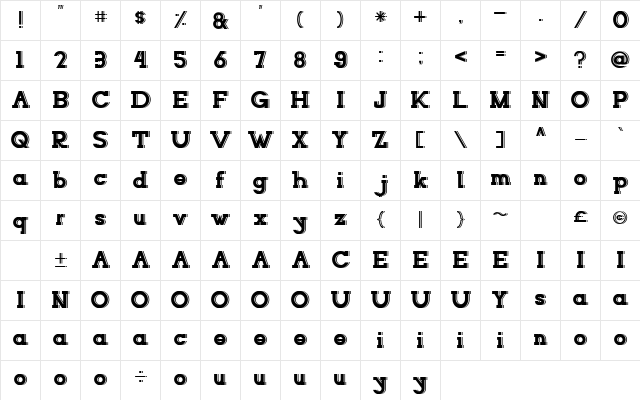
NORTHCLIFF Shadow
Design Context for NORTHCLIFF Typeface
NORTHCLIFF is built around its visual character rather than neutral utility — its distinctive forms are designed to make an impression at display sizes.
Font Pairing: Pair with a clean neutral sans-serif for body copy to let NORTHCLIFF's character lead without overwhelming the composition.
Pro Tip: Treat NORTHCLIFF as the centrepiece of your typographic hierarchy. One strong heading set in a decorative face can carry an entire layout.